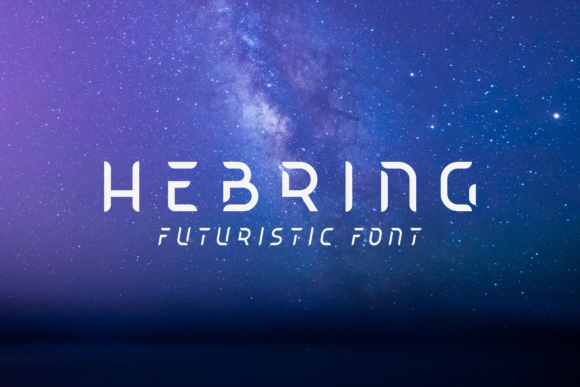
From the innovative minds at marunstudio, discover Hebring, the definitive display font poised to bring your creations to life. With its modern strokes and captivating curves, this font family is crafted to elevate your designs beyond the ordinary. Whether you're seeking to leave an unforgettable first impression through logos and branding or yearning to add a touch of intrigue to your titles and subtitles, Hebring is your gateway to greatness.
Embrace the power of a font that complements your vision effortlessly. Hebring's versatility knows no bounds, catering to a multitude of digital services with equal finesse. From the vibrant realm of websites and applications to the captivating world of presentations and social media, Hebring is your unwavering ally, ensuring your message captivates and inspires.
With Hebring at your fingertips, dive into a world of endless possibilities. Unleash your creativity and craft logos that radiate confidence and professionalism. Design social media posts that ignite engagement and spark conversations. Create presentations that captivate your audience, leaving them spellbound. Hebring is your ultimate weapon, empowering you to conquer the digital realm with finesse and distinction.
So, why settle for ordinary when you can possess the extraordinary? Allow Hebring to ignite your passion, fuel your creativity, and leave an imprint on the world that will resonate long after the last pixel fades. Embrace the boundless opportunities that await and witness the transformation of your digital presence into a stunning symphony of visual artistry. Experience the magic of Hebring today and let your imagination soar!